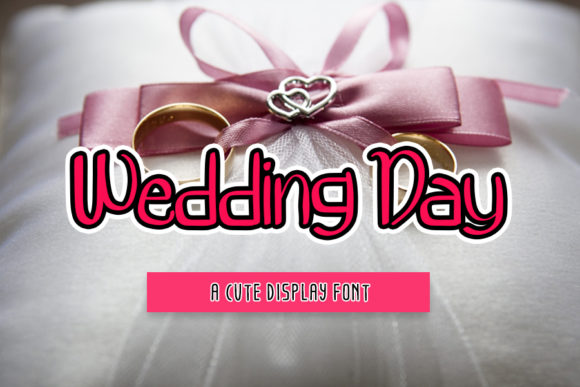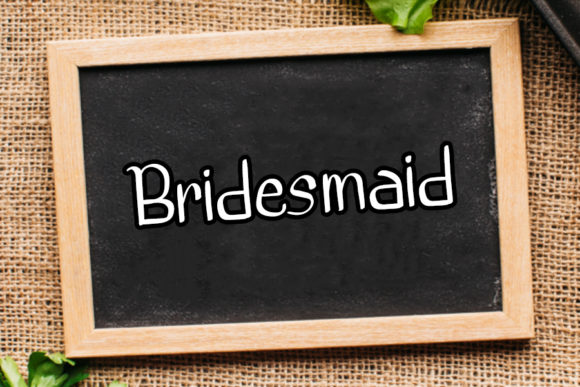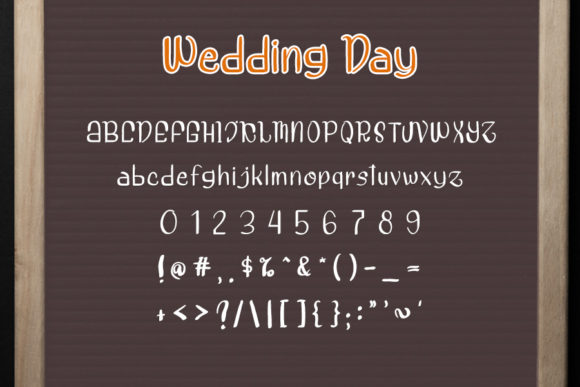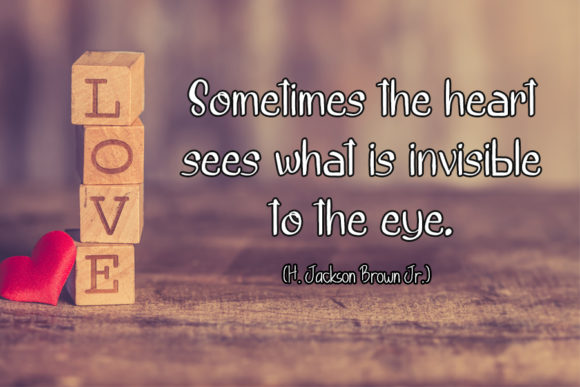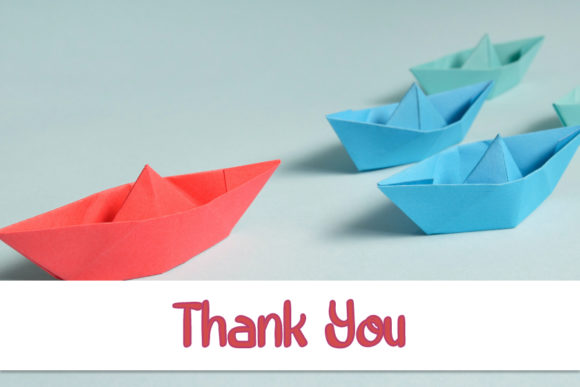
Wedding Day Font
About Wedding Day Font
Wedding Day is a sweet and jolly handwritten font that can be used for all chalkboard quotes or teaching material! Its authentic look and cool feel will add a personal and realistic vibe to your designs.